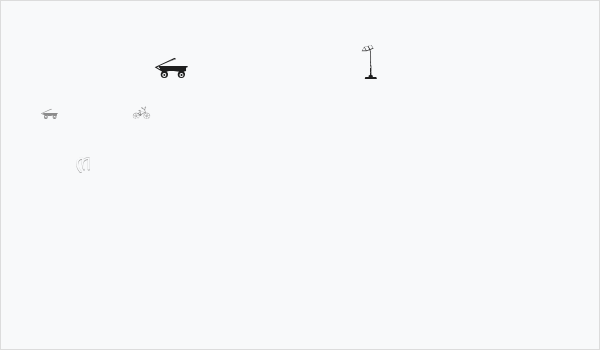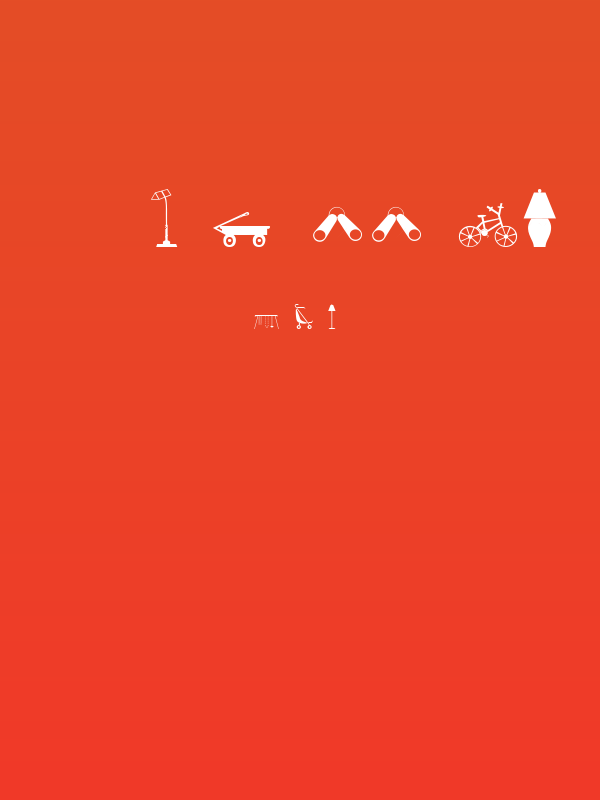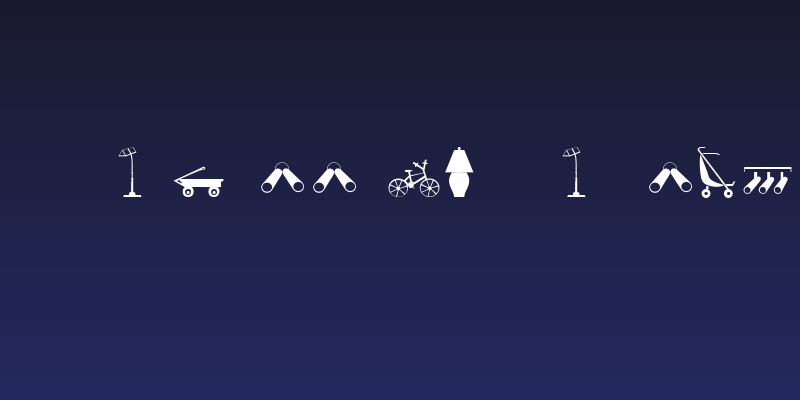
Up on Commodity Normal Font
Up on Commodity Normal Description
A pictogram-based font featuring silhouettes of various objects such as strollers, bicycles, tables, lamps, and other household or commodity items. Each character is represented by a distinct, easily recognizable icon in a simple black-and-white style.
| Overall Style | Decorative, Modern |
| Use Case | Icons, Infographics, Visual guides, Posters |
| Proposed Projects | Infographics, signage, educational materials, visual instructions, playful branding. |